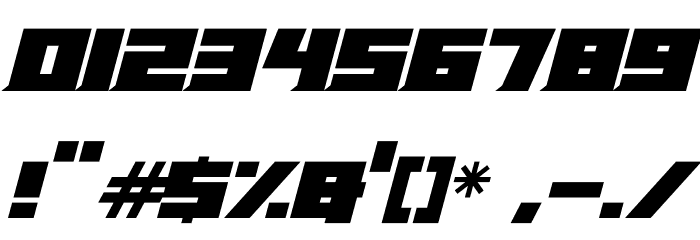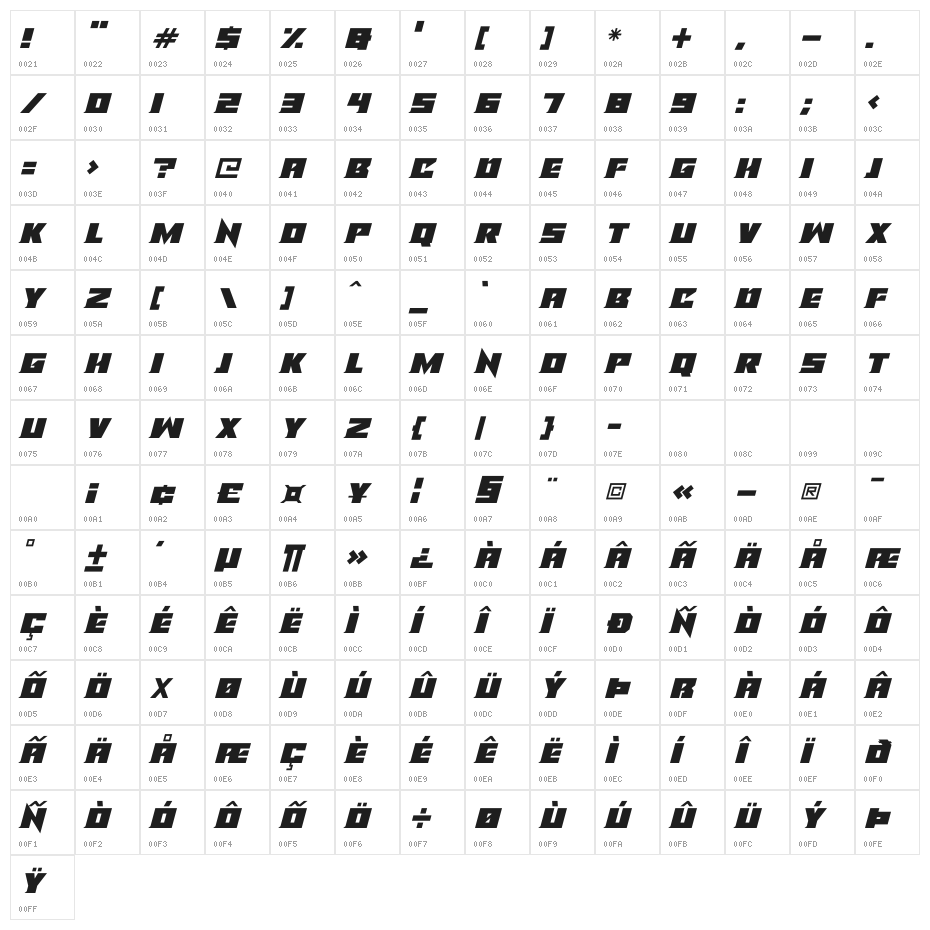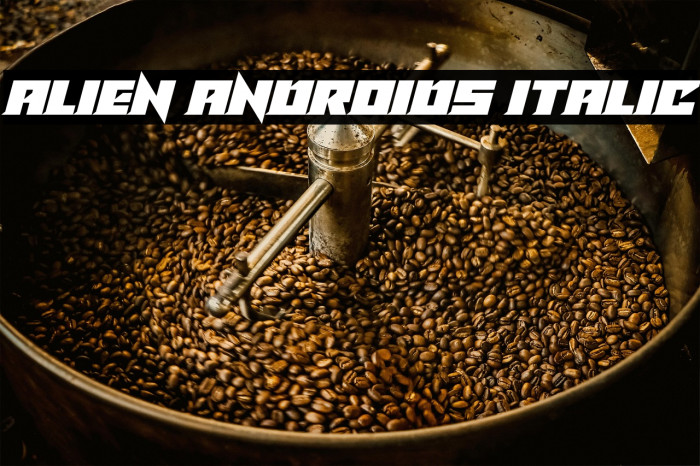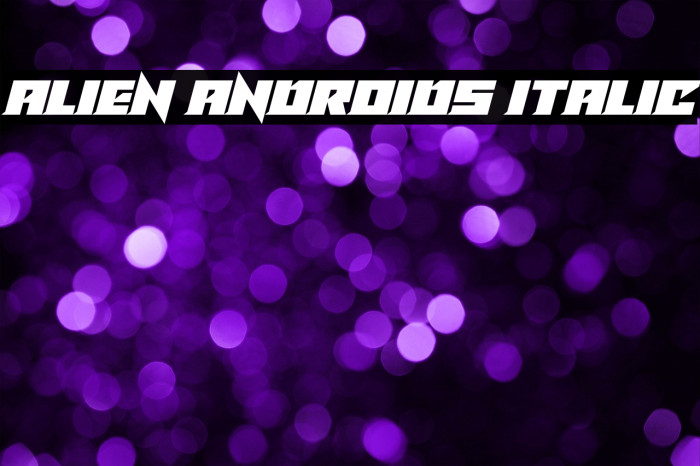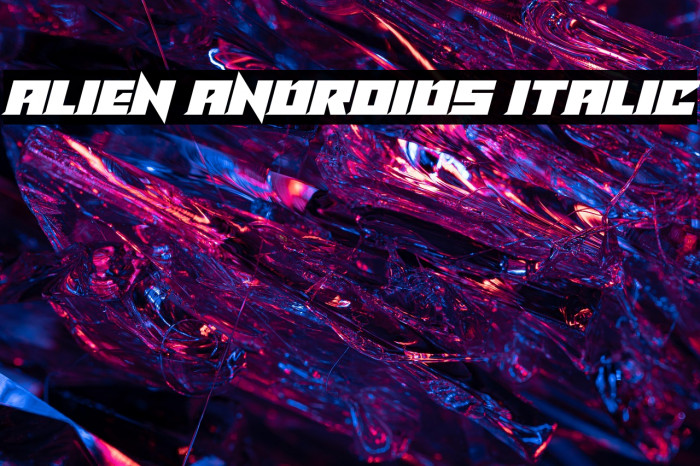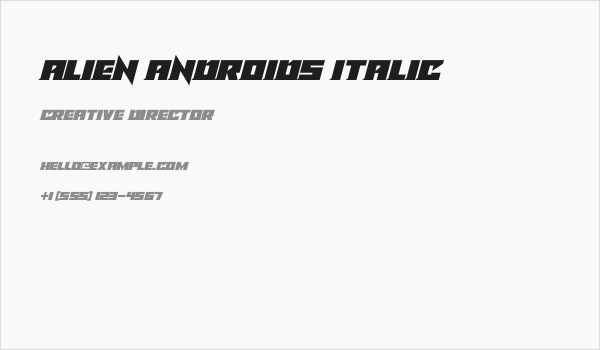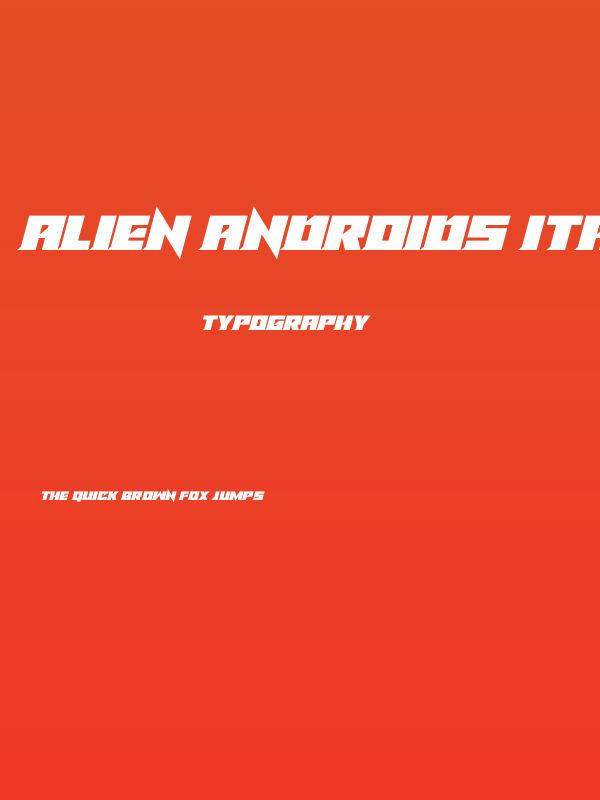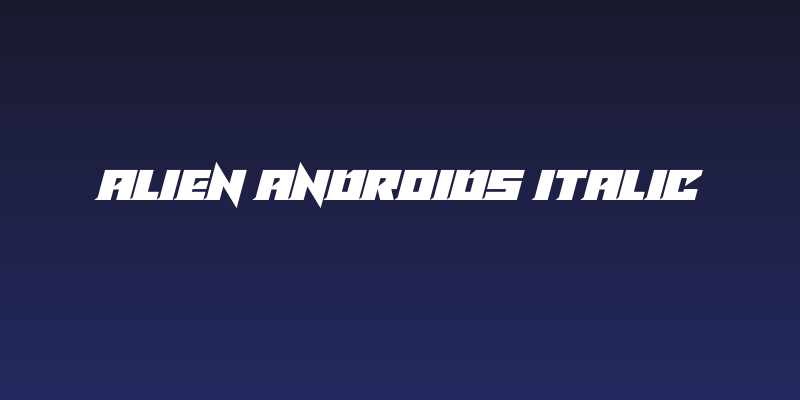
Alien Androids Italic Font
Alien Androids Italic Description
This font features a futuristic and angular design, characterized by sharp edges and a bold presence. The letters are italicized, giving a sense of motion and speed. The uppercase and lowercase letters maintain a consistent style, with a distinct geometric flair that suggests a modern, tech-inspired aesthetic. The numbers and special characters follow the same angular theme, ensuring uniformity across all glyphs. The font's boldness and unique style make it stand out, ideal for projects that require a strong visual impact.